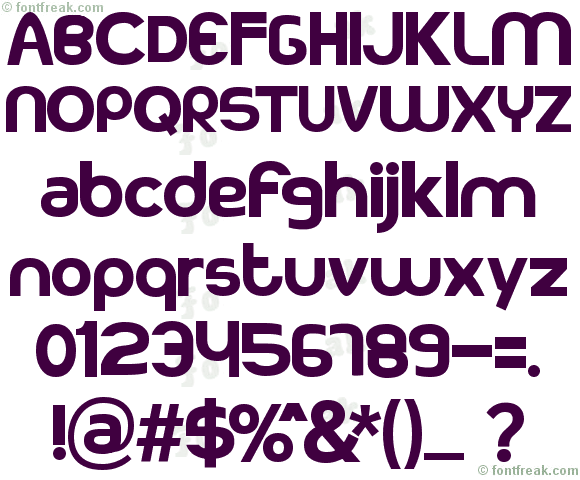
Kodakku is a striking display font designed by Ihsan Hasanudin, inspired by the iconic Kodak logo, which is a trademark of Eastman Company. This font falls into the category of decorative typefaces, making it an excellent choice for projects that require a bold and memorable visual impact. The kodakku font features a unique blend of rounded and angular forms, creating an engaging and contemporary aesthetic. Its stroke weight is consistent, providing a balanced look, while the spacing between characters is designed to enhance readability, making it suitable for various applications.
With its distinctive style, kodakku is ideally suited for a range of creative uses. It shines in wedding invitations where a touch of elegance is needed, movie posters that call for attention-grabbing typography, and restaurant menus that aim to convey a modern vibe. Additionally, it works wonderfully for branding projects, particularly for businesses looking to establish a memorable identity. The font's playful attributes also appeal to content creators seeking to infuse their work with personality and charm.
Targeting graphic designers, small business owners, and content creators, kodakku offers a versatile solution for those wishing to elevate their design projects. Its unique characteristics not only attract attention but also convey a sense of creativity and originality.